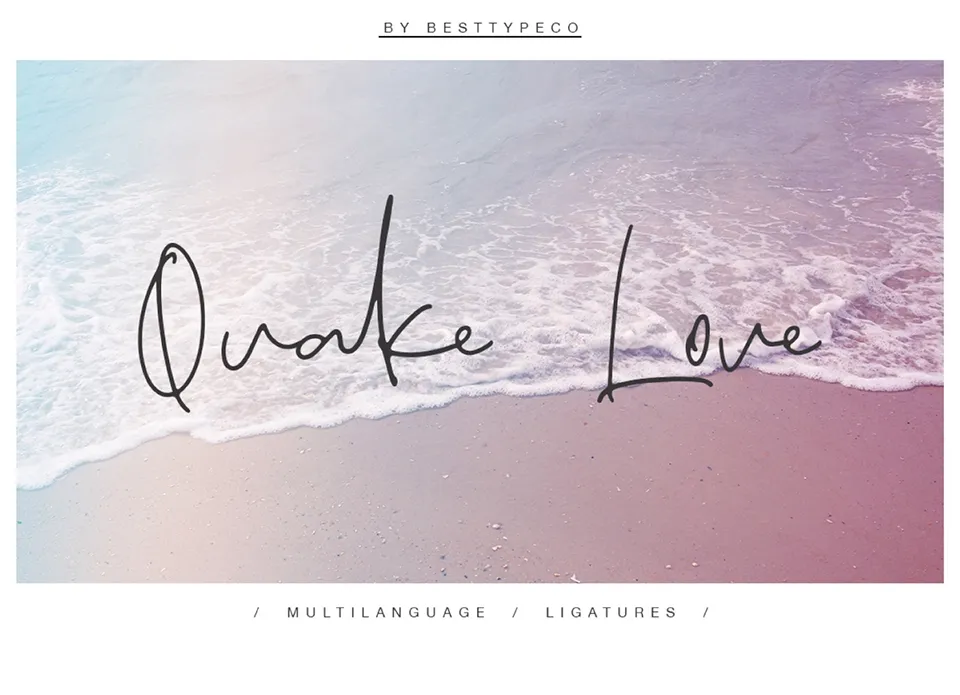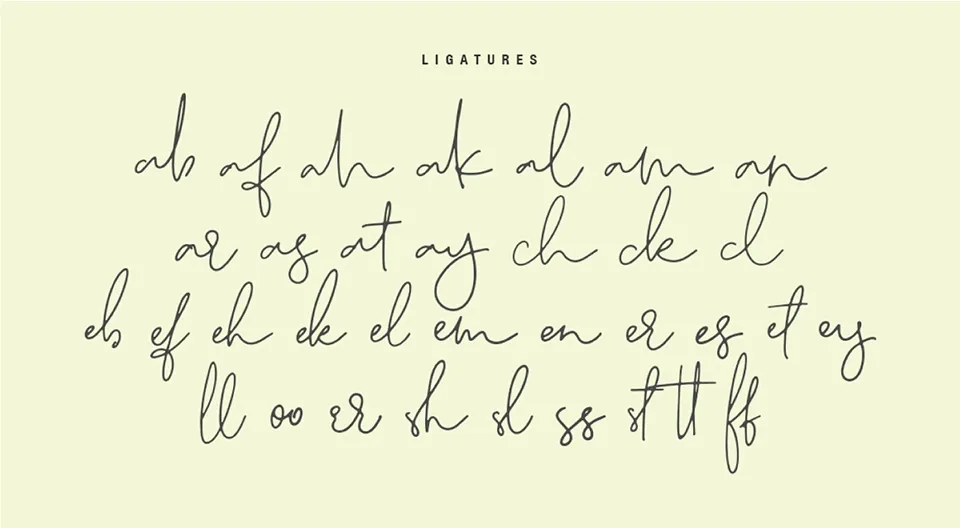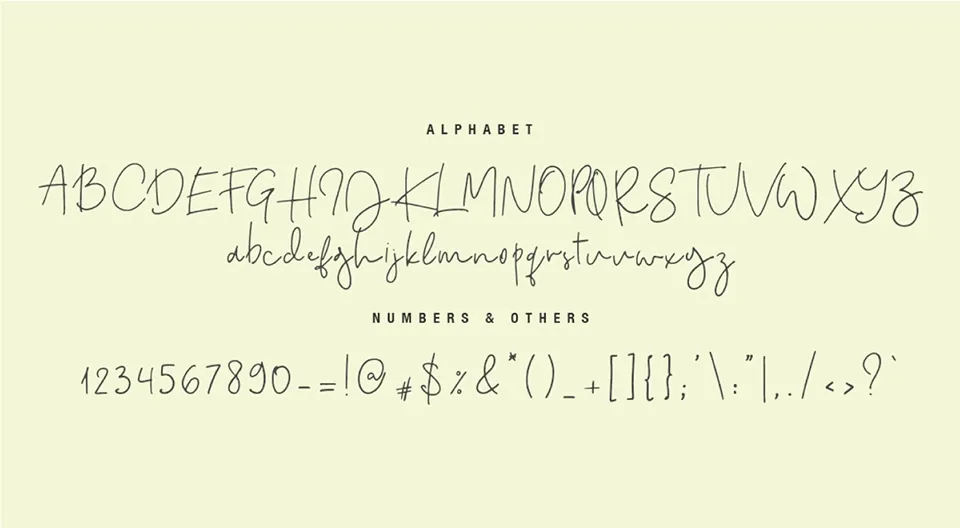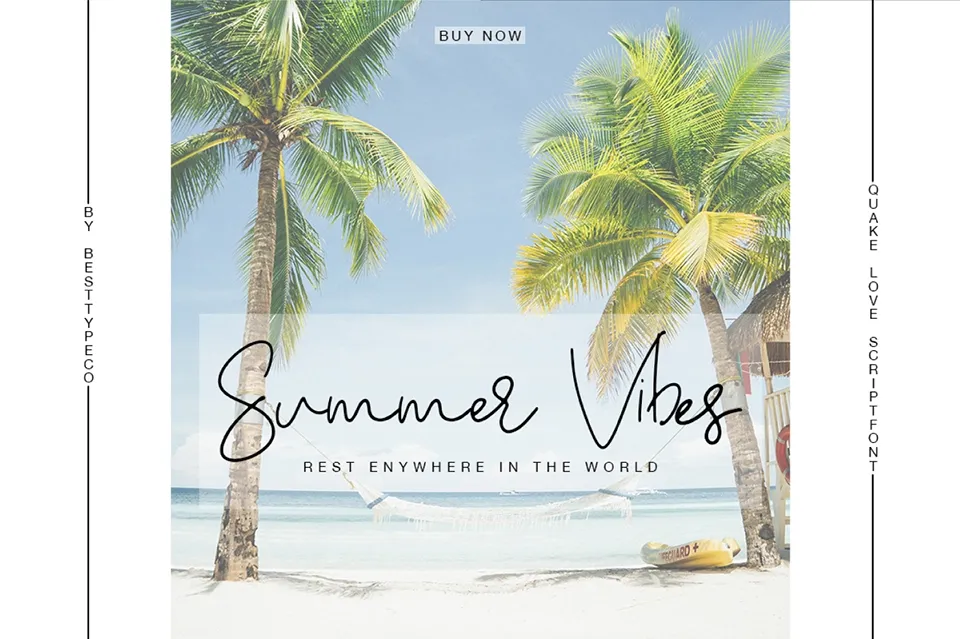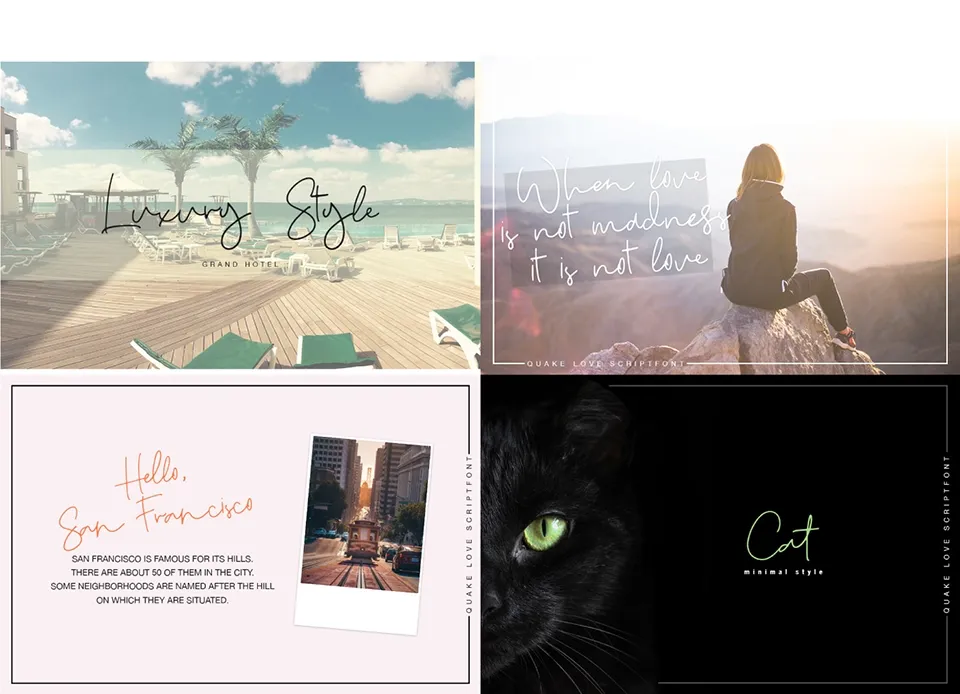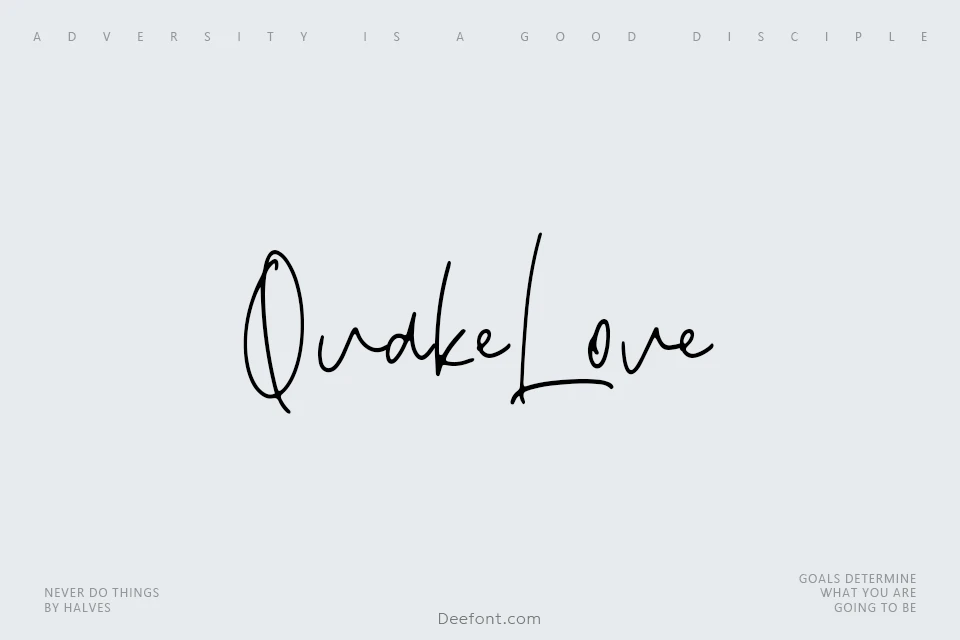
Quake Love Font
Quake Love Font, designed by Besttypeco, is presented as a delicate and modern script typeface. It features thin, flowing lines that emulate elegant, slightly irregular handwriting, giving it a personal and chic touch. The letters connect gracefully, with subtle variations in height contributing to its natural, handwritten feel. Quake Love includes ligatures for enhanced authenticity and offers multilingual support, increasing its versatility. This font is well-suited for romantic branding, wedding invitations, stylish logos, social media graphics, signatures, and any design needing a touch of sophisticated, effortless charm.